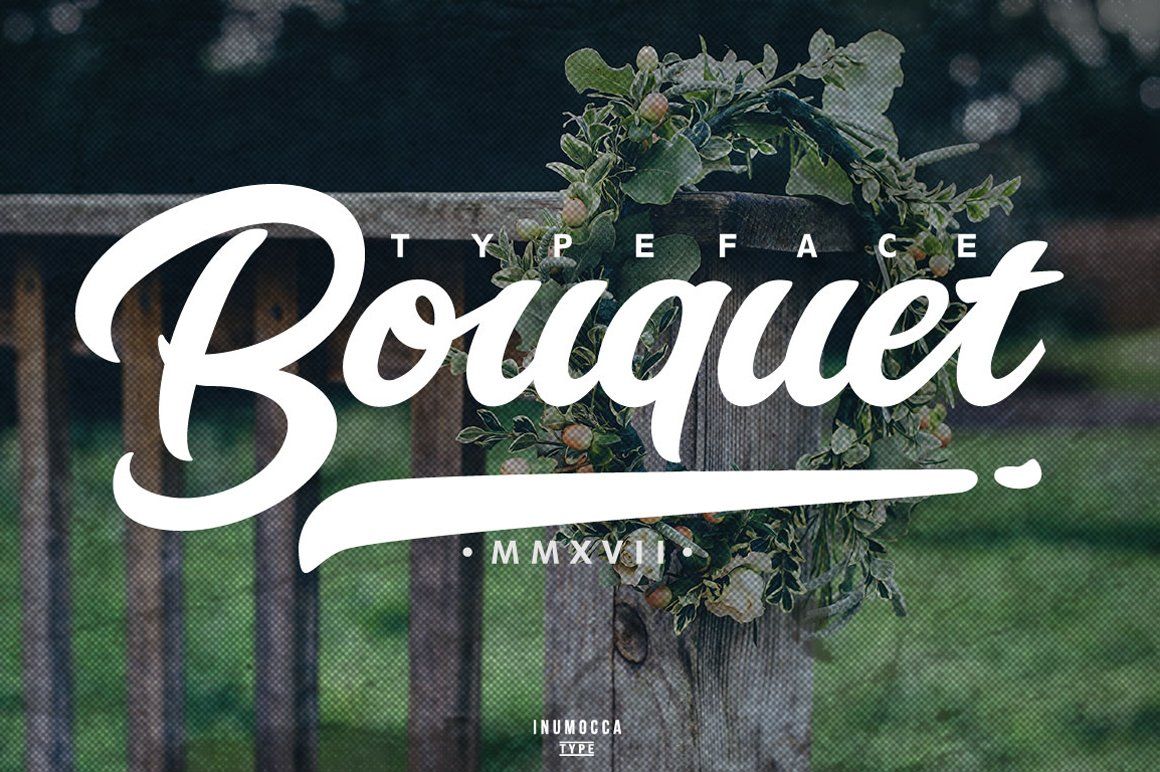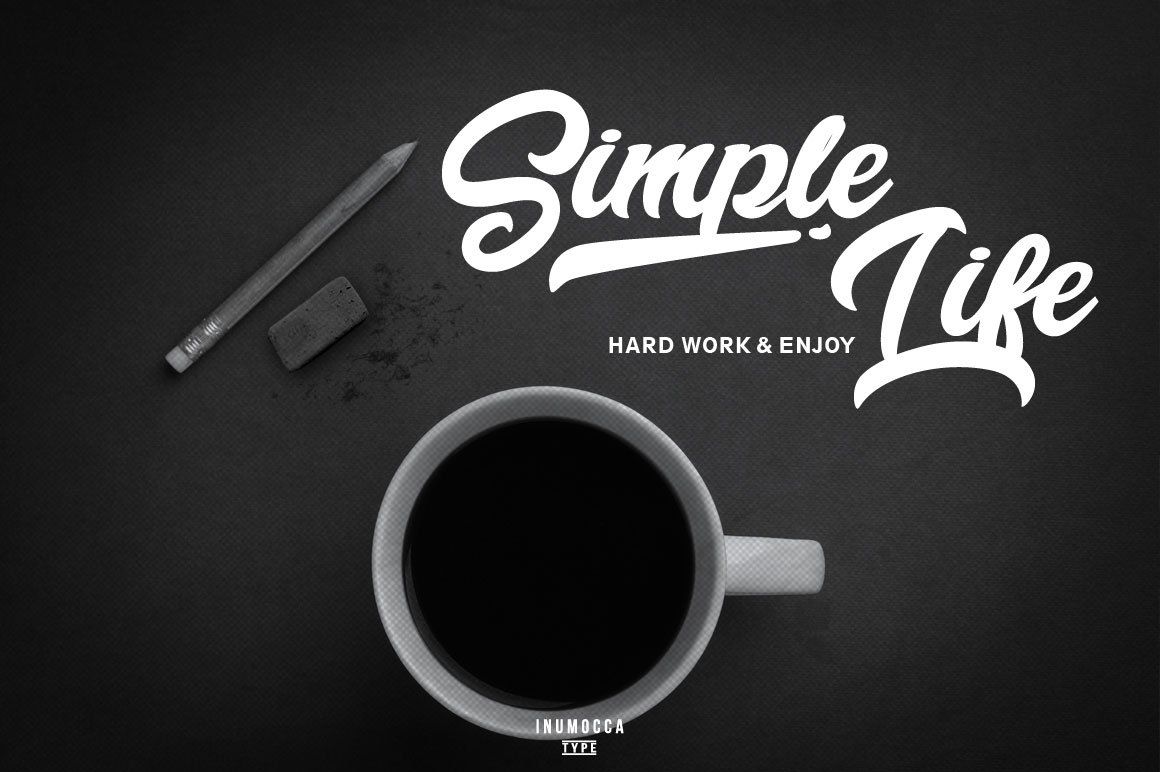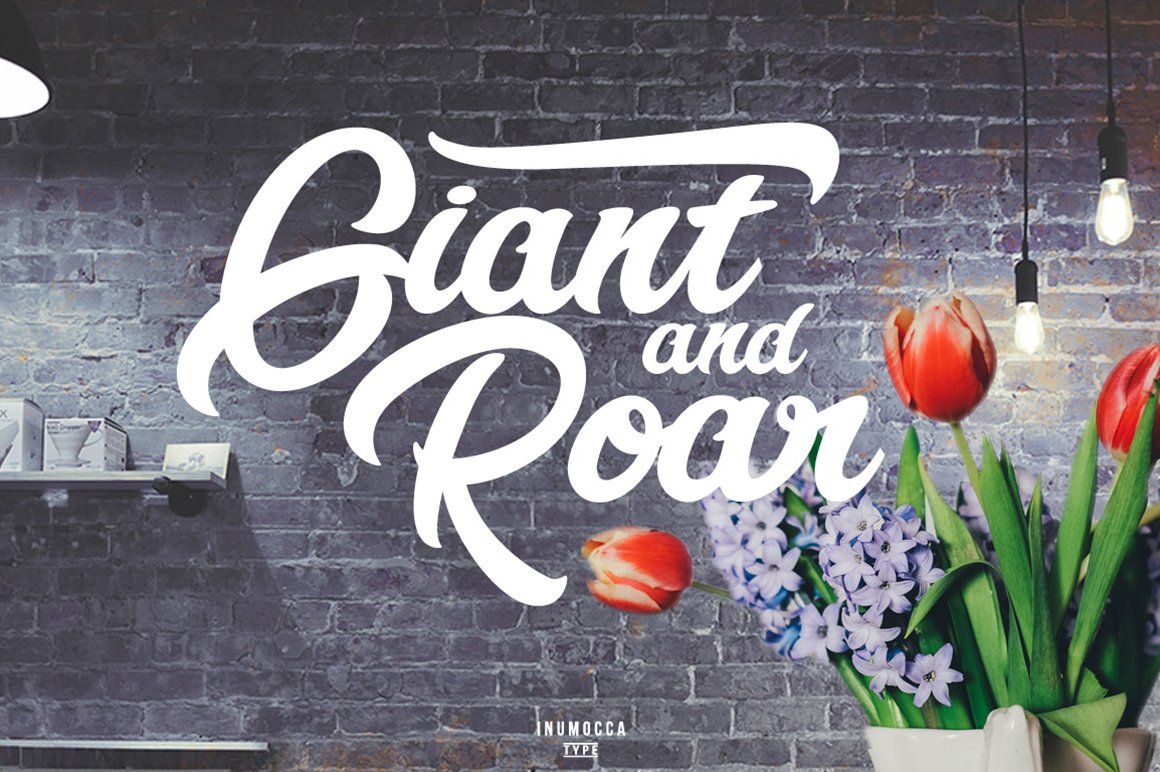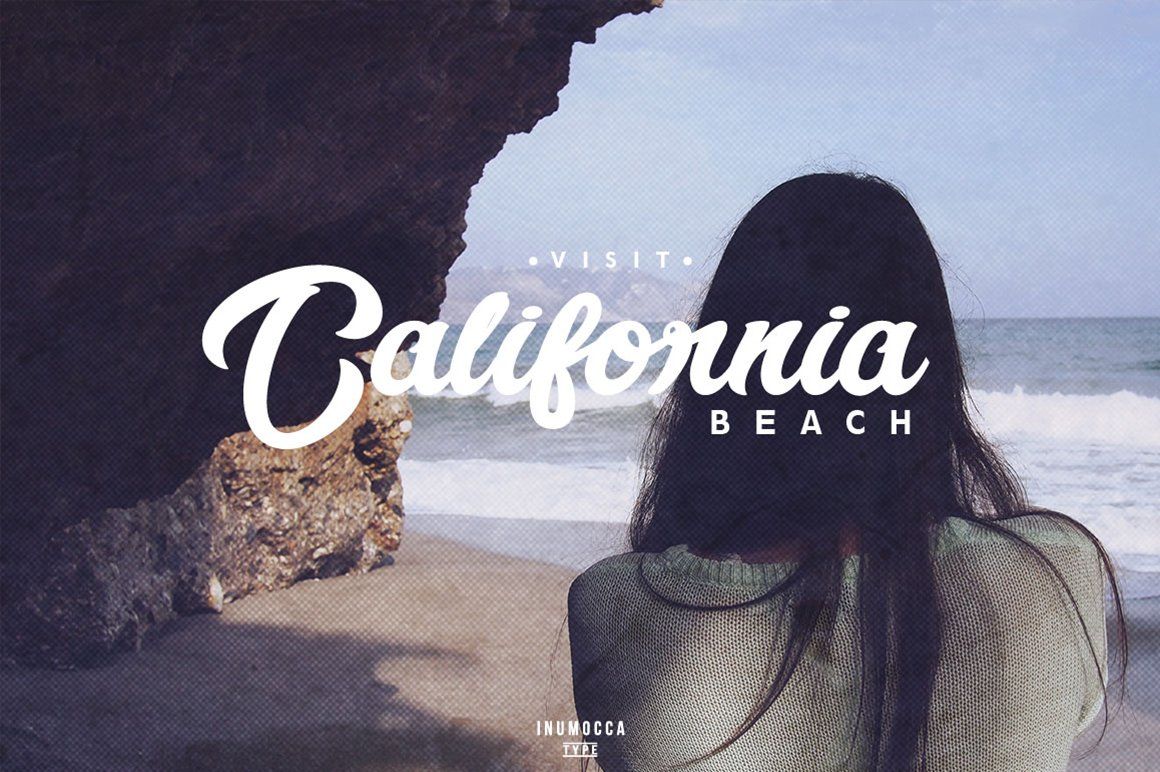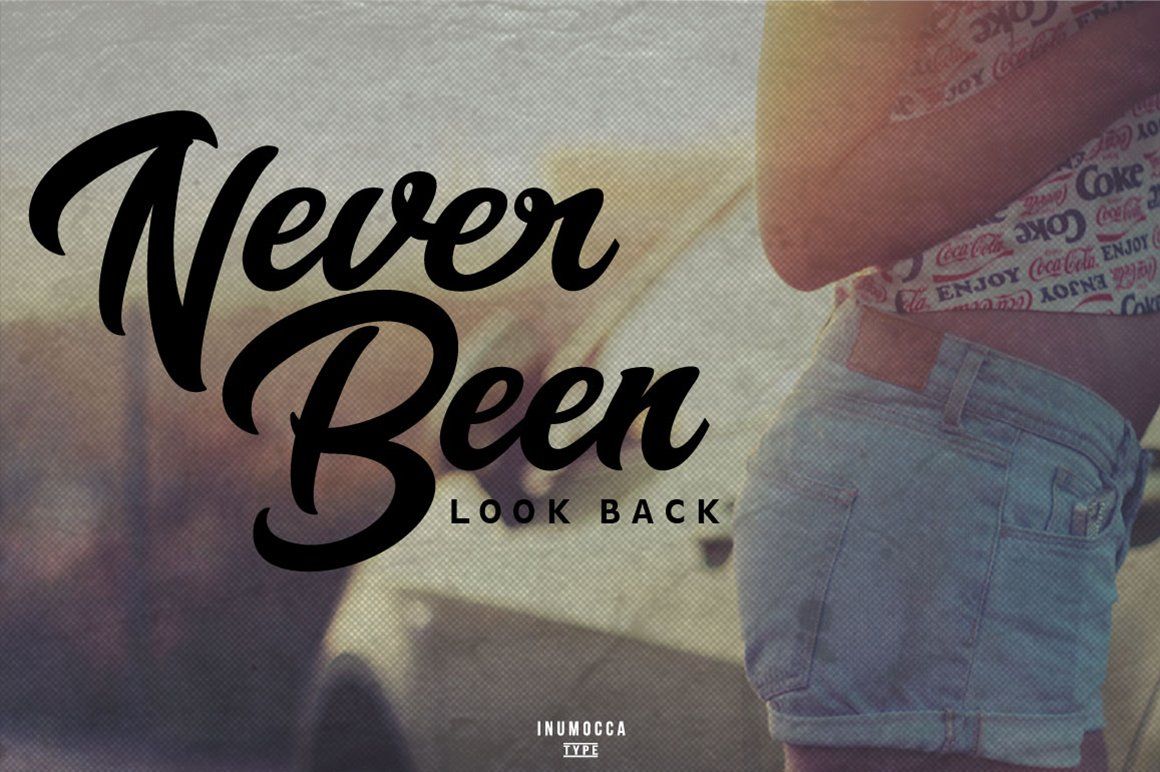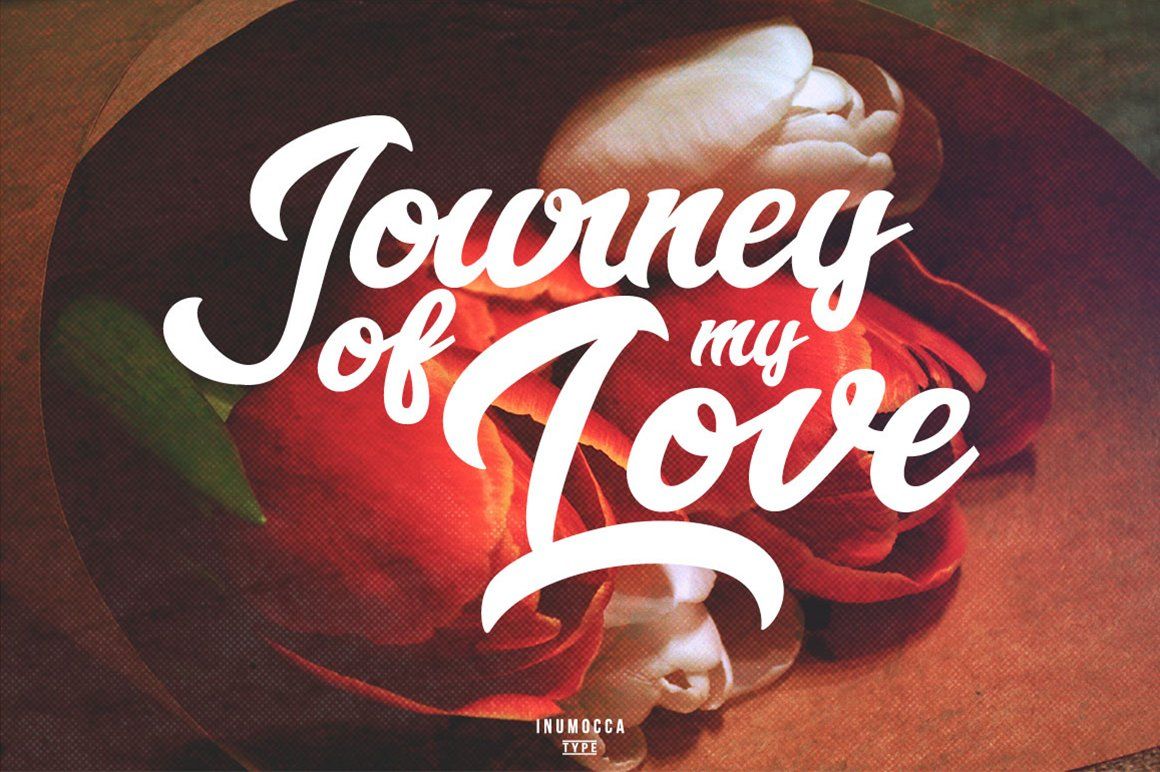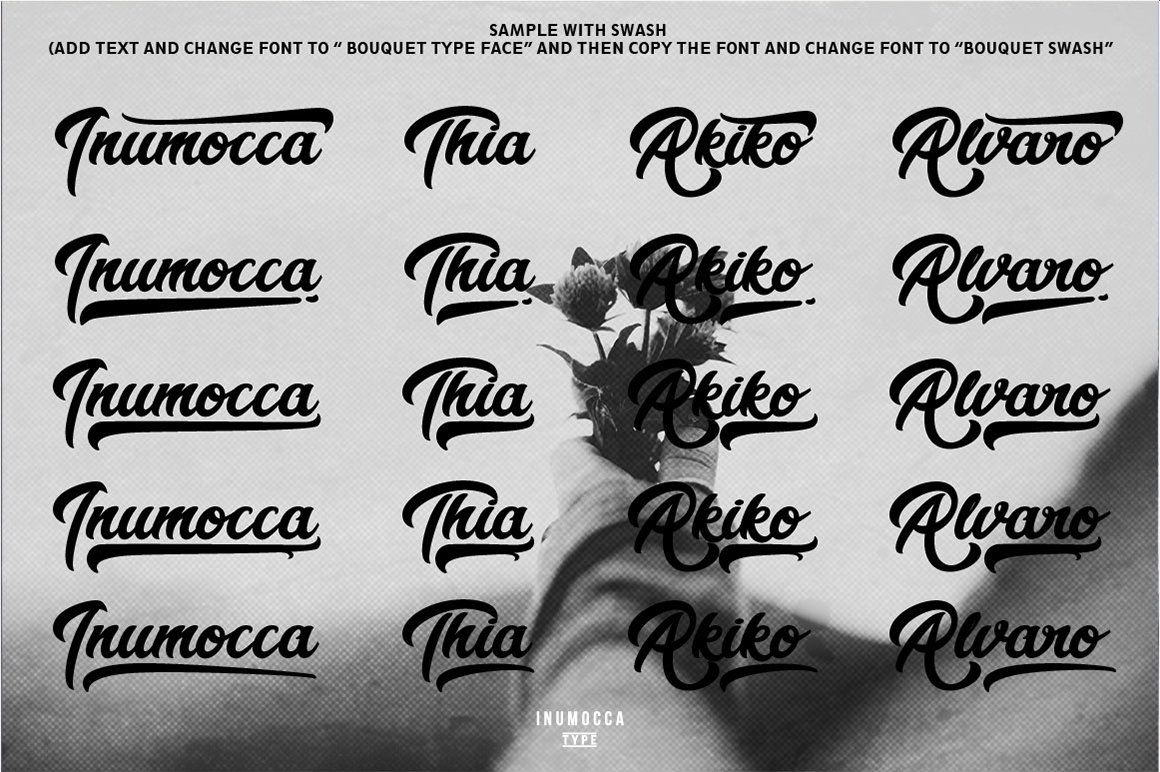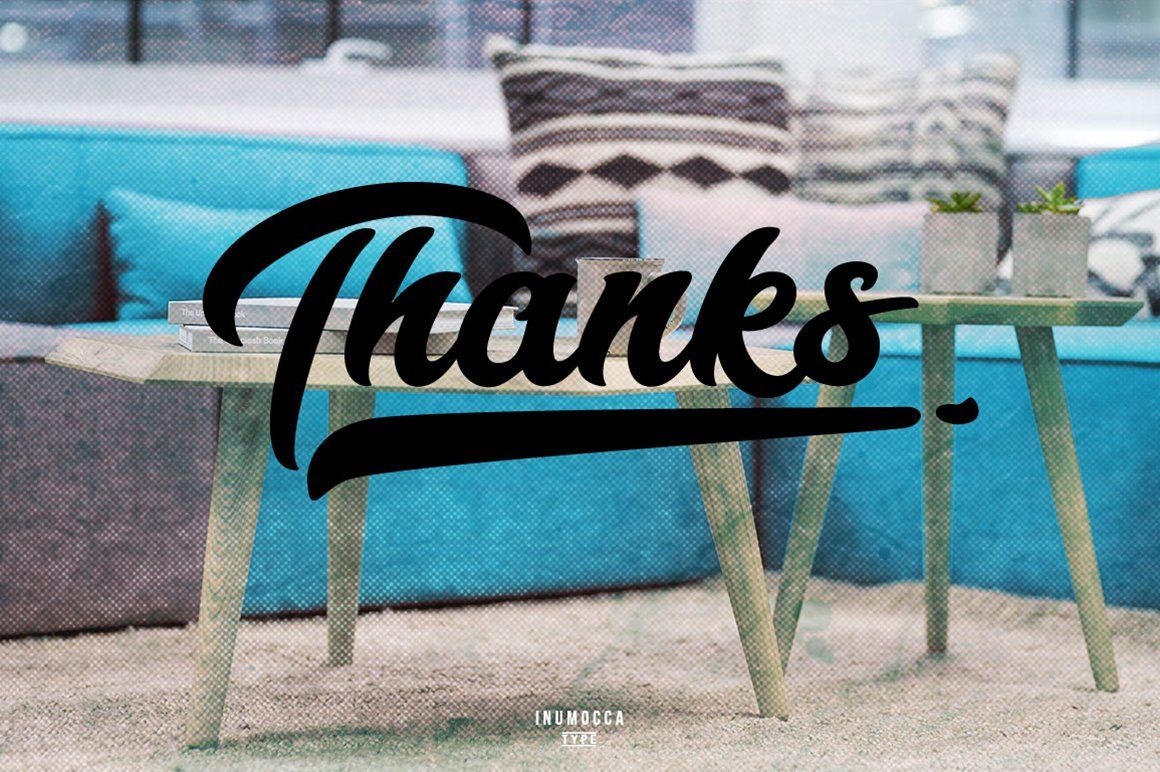
Bouquet Typeface its a modern classy typeface, Sporty and great to playing typography, or your logos , signature , your shop, Logos, catalog , all about of fashions and arts. its very easy to use.
-Bouquet Typeface support with Opentype
• Unique glyphs
• with cool Swash
• Ligatures
• Multilingual characters
• UPPERCASE
• LowerCase
• Numeric,
• Symbol,
• Punctuation characters